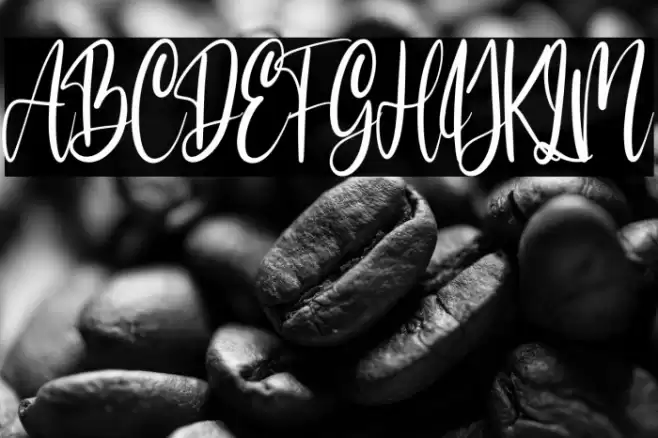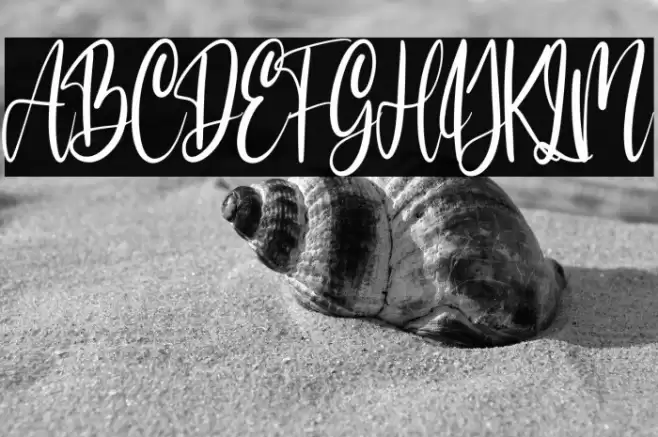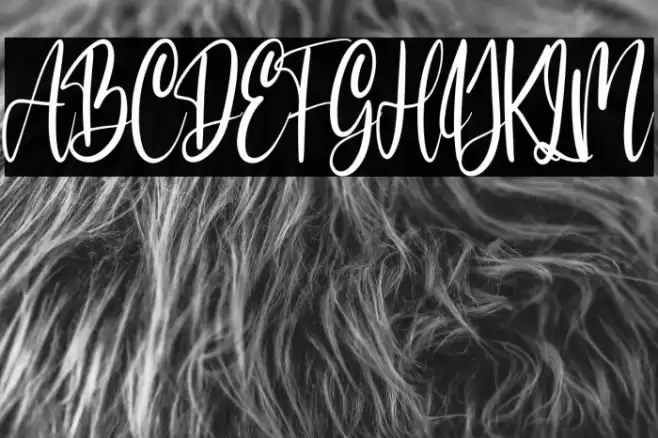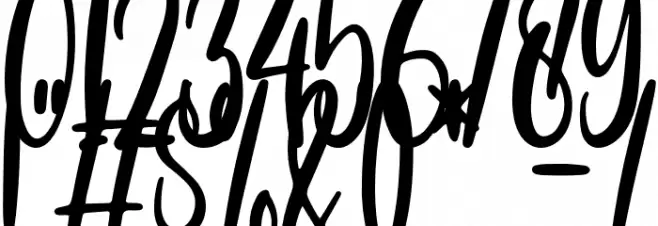
Sweet song Font
Sweet song Description
This font exudes a lively and expressive character with its flowing, cursive style. Each letter is crafted with a sense of movement, featuring elegant loops and swirls that give it a handwritten feel. The uppercase letters are tall and slender, while the lowercase letters maintain a consistent flow, enhancing readability. The numbers and special characters are equally dynamic, maintaining the font's overall aesthetic. This font is perfect for adding a personal touch to any design project, making it ideal for invitations, greeting cards, and branding materials. Its artistic flair and fluidity make it stand out, capturing attention with its unique charm.
A lively, cursive font with elegant loops and a handwritten feel from Uncategorized fonts.
- Font: Sweet song